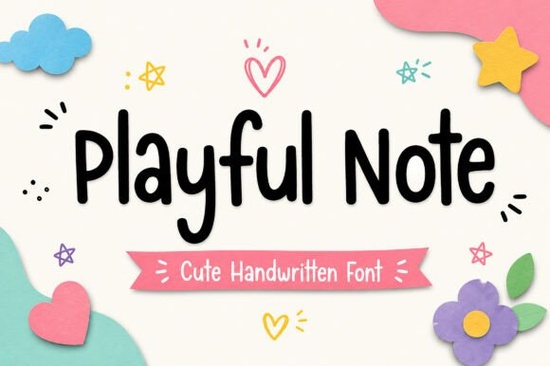
If you're looking for a friendly, hand-drawn font that works as well on a kindergarten worksheet as it does on a sticker sheet or Instagram story, Playful Note Font is a solid choice. It’s not overly bouncy or childish just warm, legible, and full of quiet charm. Teachers use it for classroom posters and printable flashcards. Crafters choose it for Cricut vinyl projects and planner stickers. Small businesses and print-on-demand sellers rely on it for greeting cards, tote bags, and product labels where approachability matters more than formality.
What kind of projects does Playful Note work best for?
This font shines in contexts where personality and clarity both matter. Its smooth strokes and consistent spacing make it easy to read at small sizes unlike some script fonts that blur or tangle when scaled down. That’s why it’s popular for:
- Printable worksheets and learning aids (especially for early readers)
- Stickers and die-cut designs for planners or bullet journals
- Greeting cards, baby shower invites, and birthday party printables
- Social media graphics for small creative brands or teacher accounts
- Merchandise like mugs, notebooks, and fabric prints with a soft, handmade feel
It’s not meant for formal reports or legal documents but that’s not its job. Think of it as the font you’d choose for a note passed between friends, not a boardroom memo.
How does it compare to other handwritten fonts on Creative Fabrica?
Playful Note sits comfortably between ultra-casual and polished script styles. It’s less ornate than Premierre Marsiella Font, which has more dramatic flourishes and works better for elegant branding. It’s also more grounded than Sparkling Moment Font, whose delicate swashes suit wedding stationery more than classroom materials.
Compared to Fairmont Ridge Font, Playful Note feels lighter and more spontaneous less “vintage sign painter,” more “teacher who doodles in the margins.” And while Wedding Party Font leans into romance and celebration, Playful Note keeps things inclusive and age-neutral ideal for educators or makers serving families and kids.
Even Laundry Font, with its cozy, domestic vibe, serves a narrower niche think laundry tags or apron embroidery. Playful Note casts a wider net without losing its voice.
Is it practical for real-world use?
You’ll find it especially handy if you often switch between digital and print outputs. Unlike some decorative fonts that pixelate or thin out when printed small, Playful Note holds up well in both settings. Test it at 12 pt on a PDF handout or 0.25" tall on a vinyl sticker it stays readable.
One thing to keep in mind: it doesn’t include stylistic alternates or ligatures. So if you need multiple versions of the same letter for variety (like in high-end logos), you might pair it with a complementary sans-serif or light serif for contrast instead.
Who’s using it right now and why?
A growing number of teachers are embedding Playful Note into editable Google Slides lessons and printable PDFs because students respond well to its warmth. Etsy sellers report higher engagement on listings that use it for product titles and tags (“Handmade with Love” looks friendlier in Playful Note than in Arial). Print-on-demand creators appreciate how well it translates to textured surfaces like kraft paper or canvas tote bags no harsh edges, no visual noise.
It’s also becoming a go-to for small studios designing inclusive educational tools think emotion cards, sensory activity sheets, or bilingual flashcards where tone and accessibility go hand in hand.